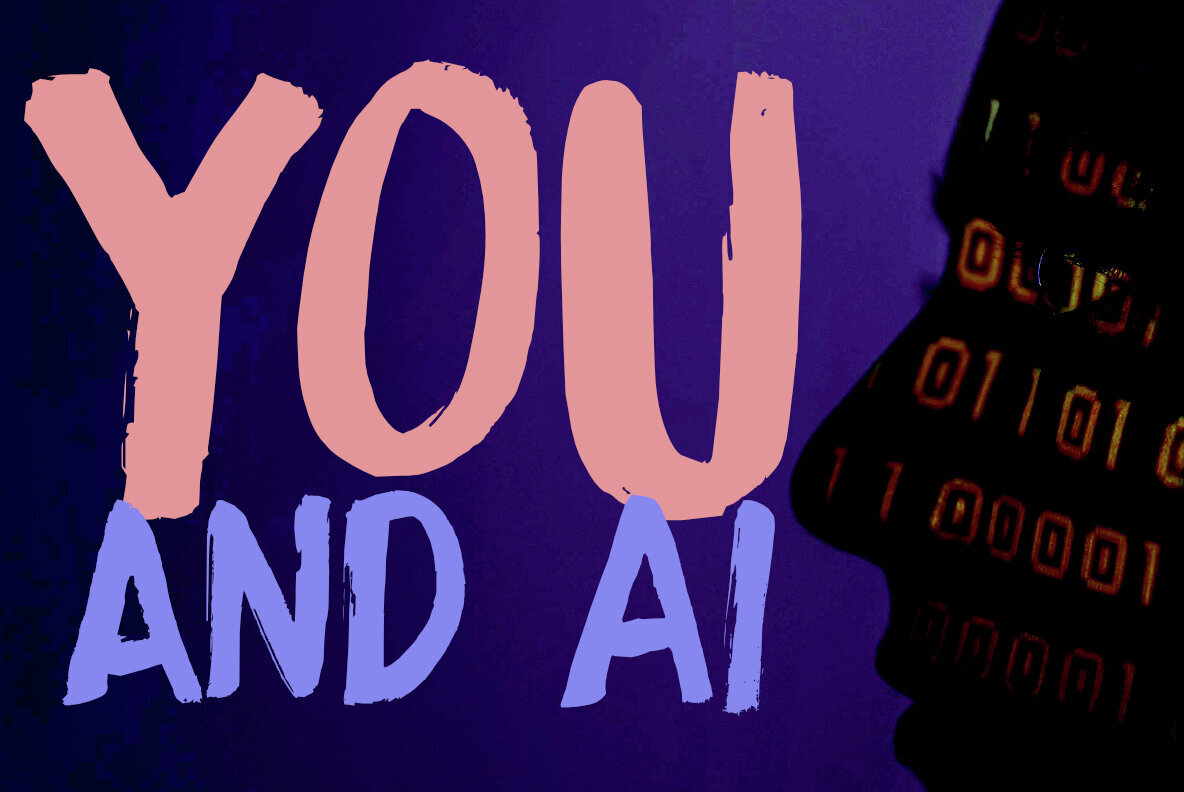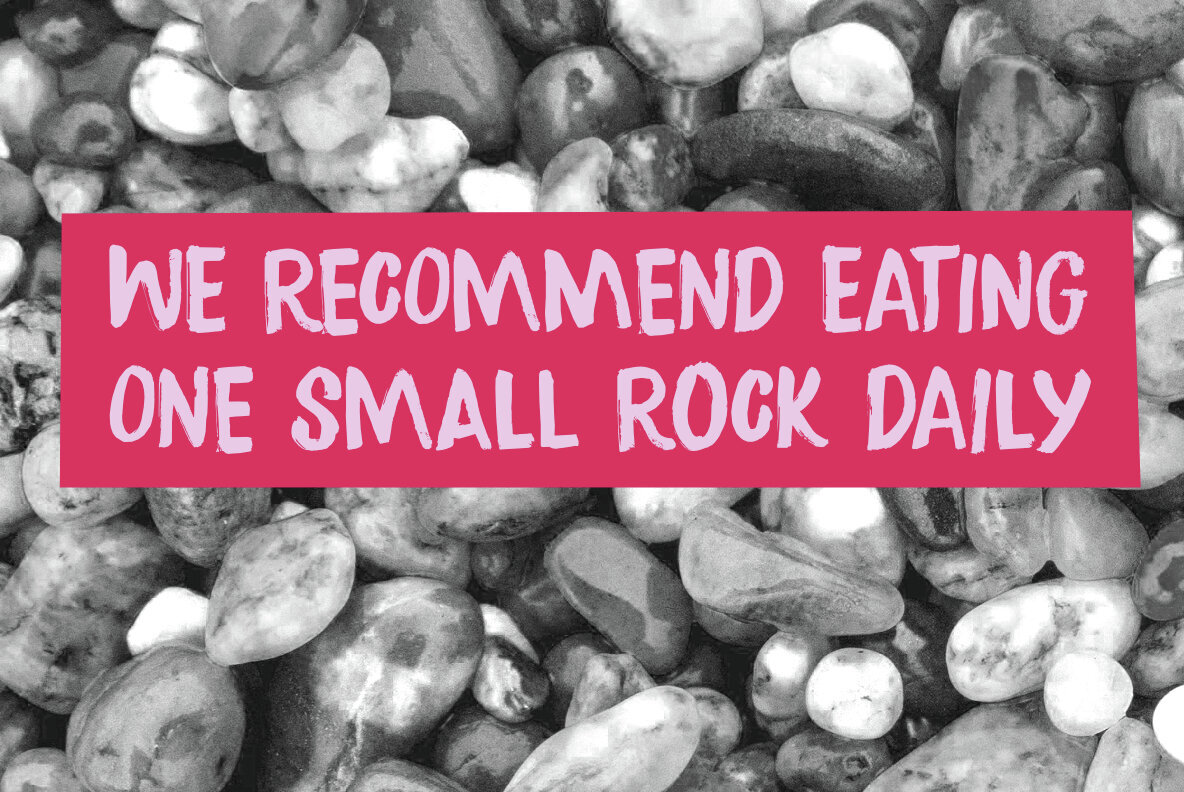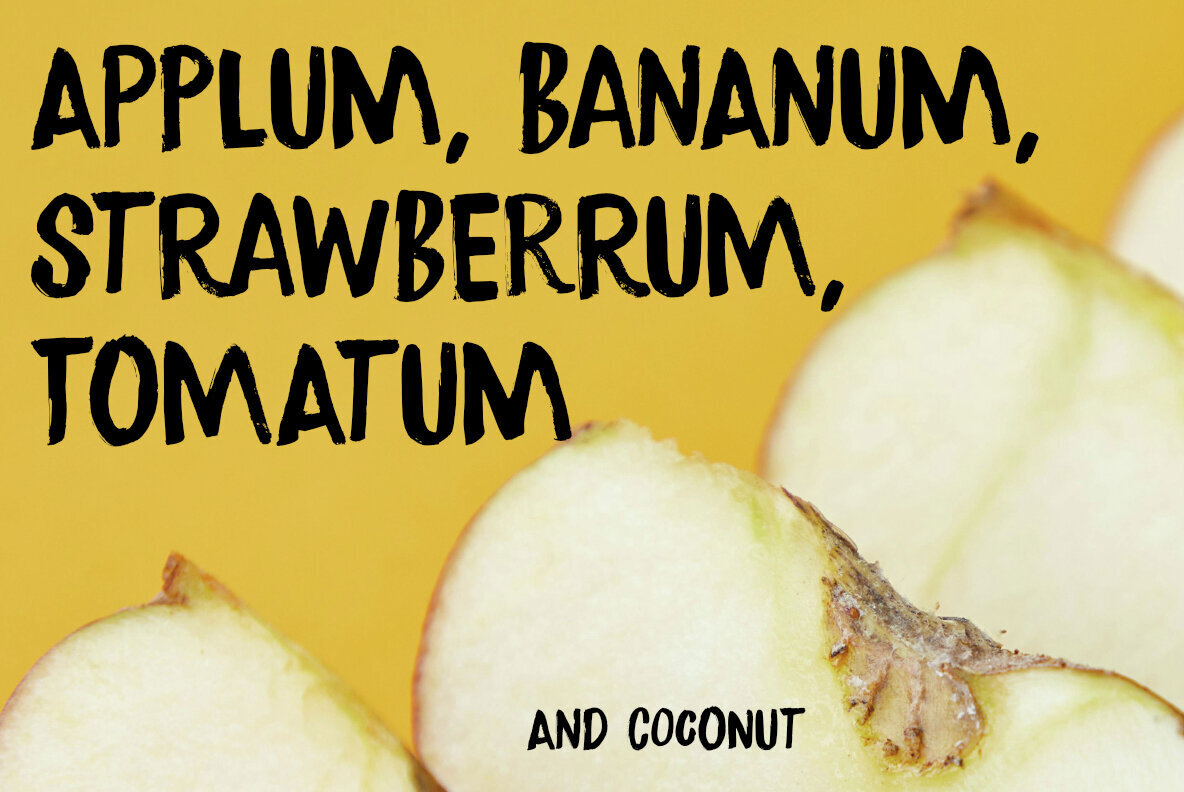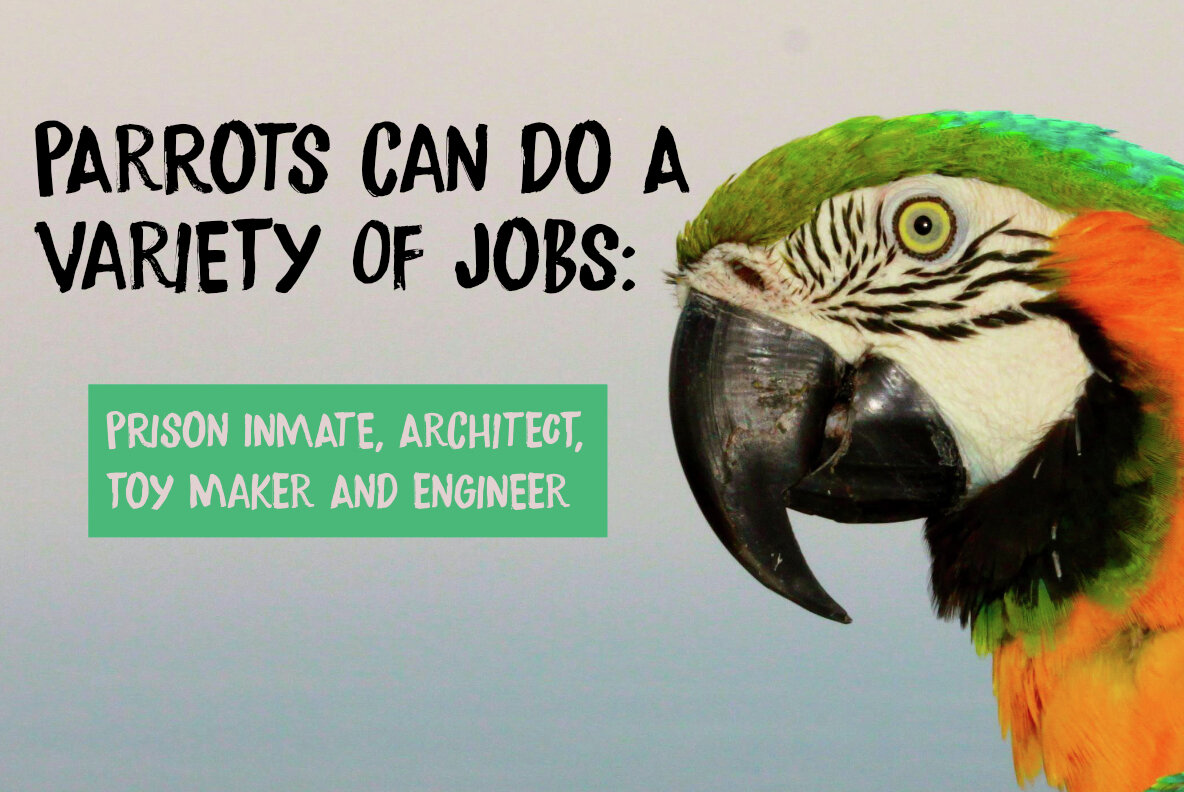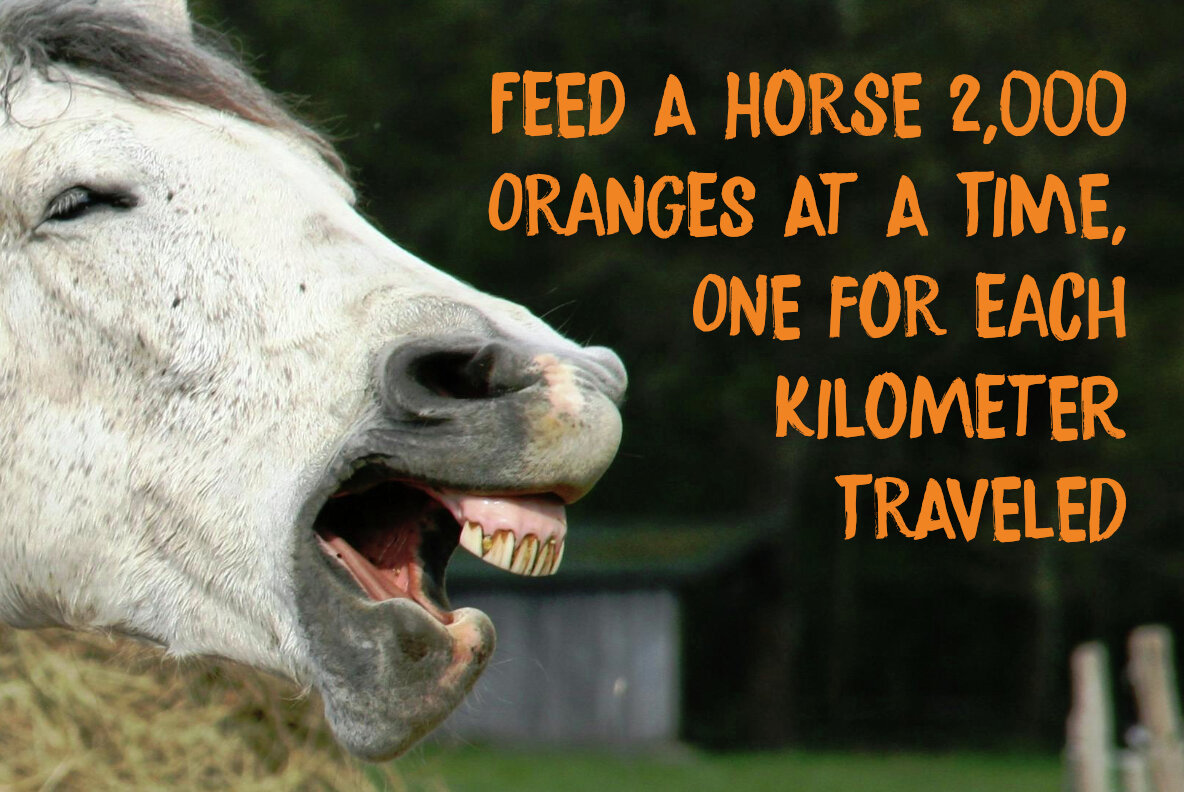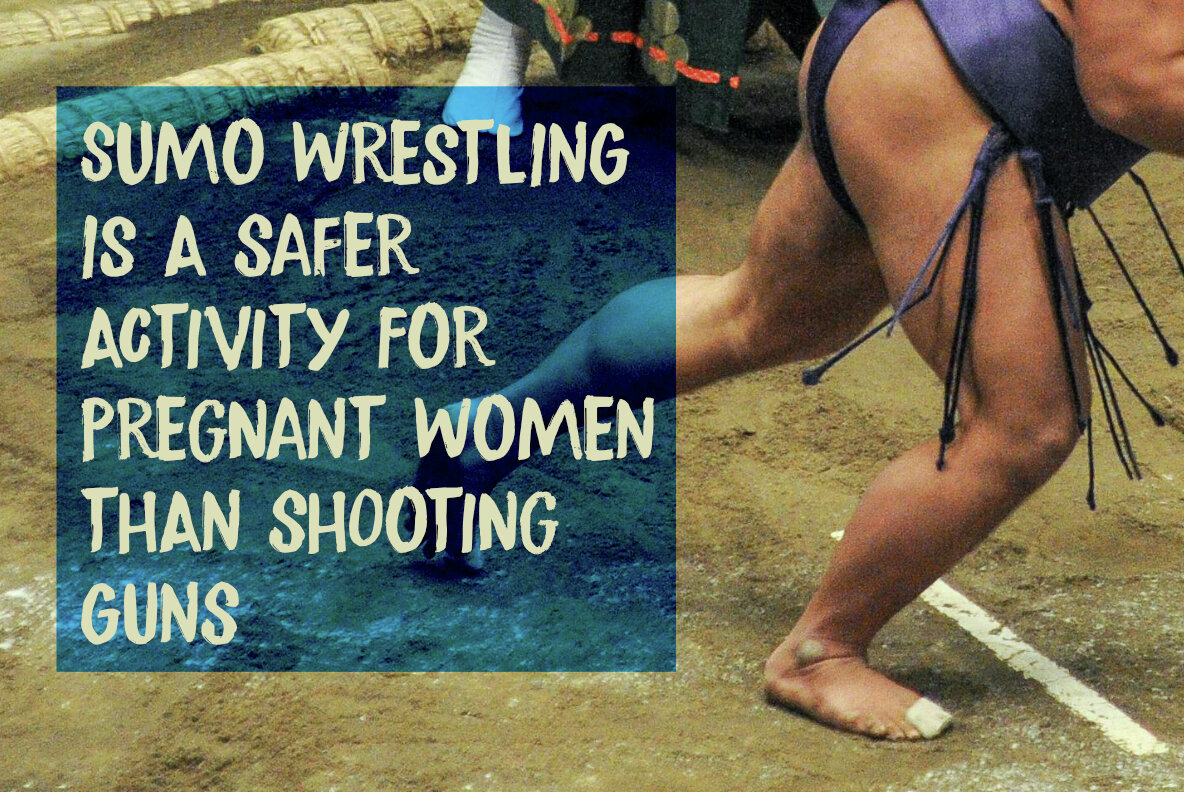
You And AI Font
You And AI Regular
You And AI Italic
We are now completely immersed in the AI era, and while the world of artificial intelligence rapidly evolves, it brings with it a mix of remarkable advancements and charming mishaps. Inspired by the amusing errors that grace the digital landscape, the You And AI font captures the essence of this unique time. Created meticulously by hand, You And AI offers an authentic touch, free from AI interference. This font serves as a playful nod to the imperfections that make the AI journey interesting. Add a personal touch to your projects that's reminiscent of traditional craftsmanship.Embrace the AI Era with You And AI Font